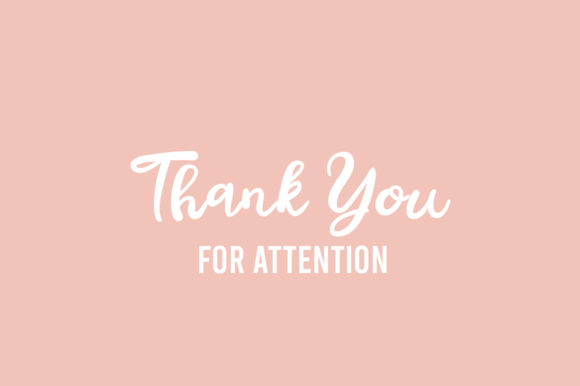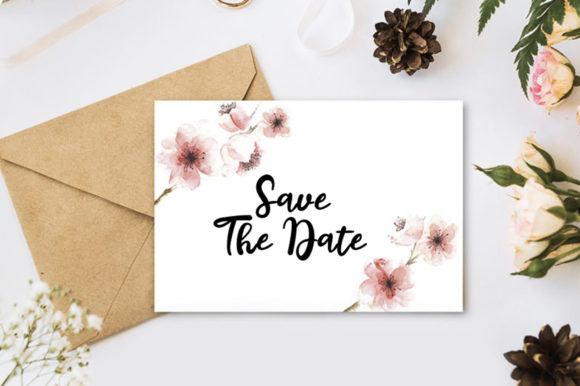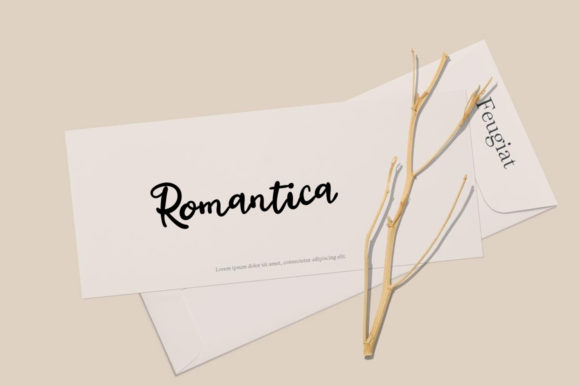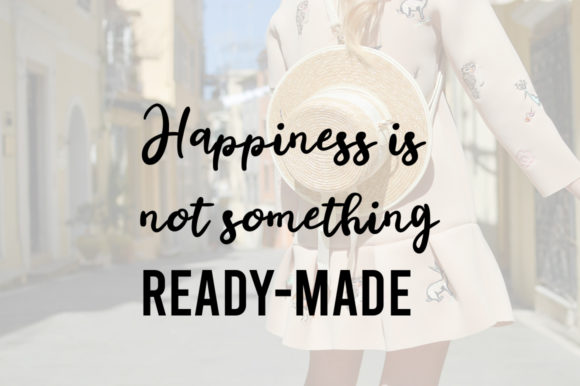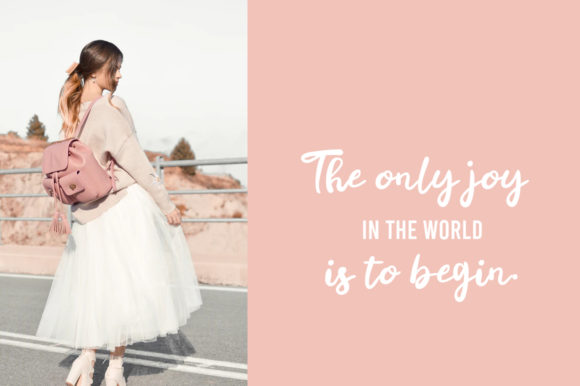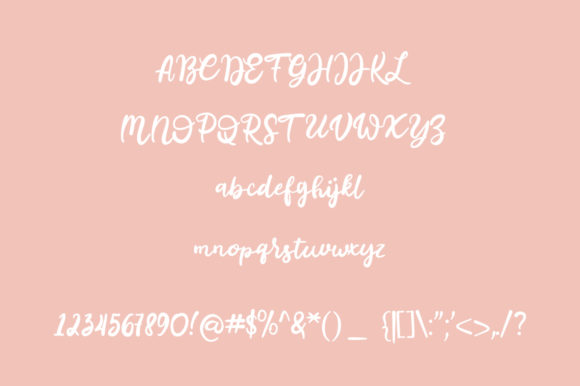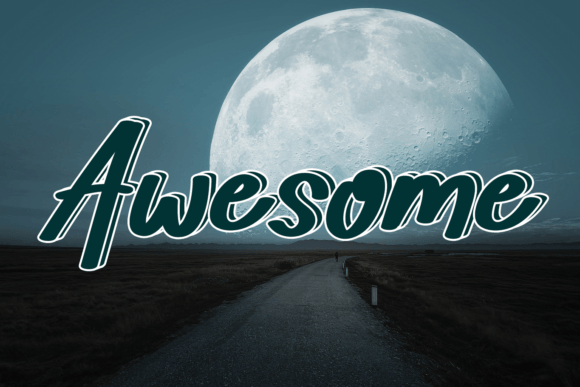
Bugetta Font
About Bugetta Font
Bugetta is a sweet and elegant handwritten font that adds a touch of sophistication and charm to your designs. With its graceful and flowing letterforms, this script font is perfect for adding a special touch to a wide range of design ideas.
The delicate and graceful strokes of Bugetta give your designs an elegant and refined look. Whether you’re designing wedding invitations, greeting cards, logos, or any other project that requires a touch of elegance, Bugetta can elevate your design and create a sense of sophistication.
The script nature of Bugetta adds a sense of handcrafted beauty to your designs. Each letter is carefully crafted with fluid strokes and subtle variations in thickness, creating a natural and organic feel. This makes Bugetta a great choice for projects that aim to convey a sense of craftsmanship and attention to detail.
One of the advantages of using Bugetta is its versatility. Its elegant and timeless style allows it to be used in various design contexts, from branding and packaging to social media graphics and typography. Bugetta can adapt to different themes and aesthetics, making it a versatile choice for any design idea you can think of.
Furthermore, the elegance and sophistication of Bugetta make it well-suited for formal and special occasions. It’s an ideal font for designing wedding stationery, event invitations, or any project that requires a touch of refinement and romance. The graceful and flowing nature of Bugetta’s letterforms adds a sense of beauty and allure to your designs.
In conclusion, Bugetta is a sweet and elegant handwritten font that brings a touch of sophistication and charm to your designs. Its delicate and graceful letterforms make it perfect for adding a special touch to a wide range of design ideas. Whether you’re aiming for elegance, romance, or craftsmanship, Bugetta can enhance your design and create a memorable visual experience.